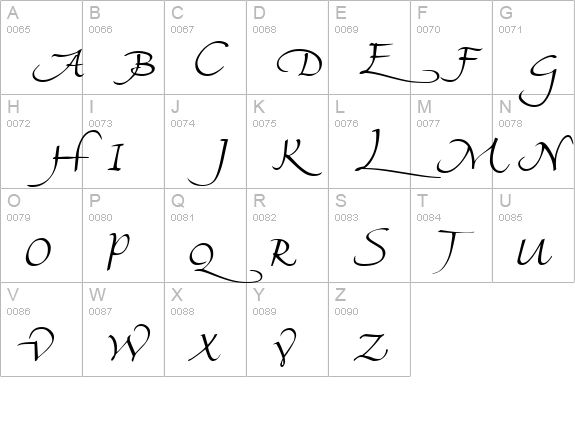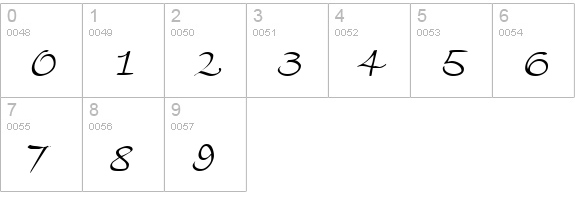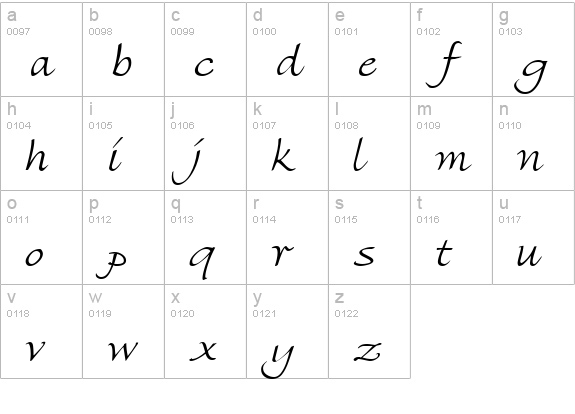
ValerieCapitale Font Details
ValerieCapitale font exudes elegance and sophistication with its graceful curves and stylish flourishes. This timeless typeface is perfect for adding a touch of class to your designs. Whether you're working on invitations, branding, or any creative project, ValerieCapitale will surely make a statement. The best part? This exquisite font is available for free download at FontsMarket.com. Now you can elevate your designs without breaking the bank. Don't miss out on the opportunity to enhance your projects with the beauty and charm of ValerieCapitale font. Download it today and let your creativity shine!